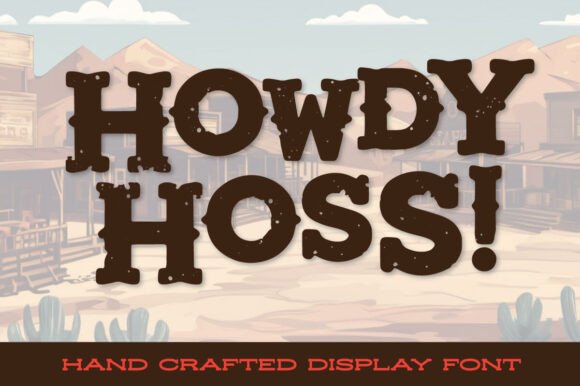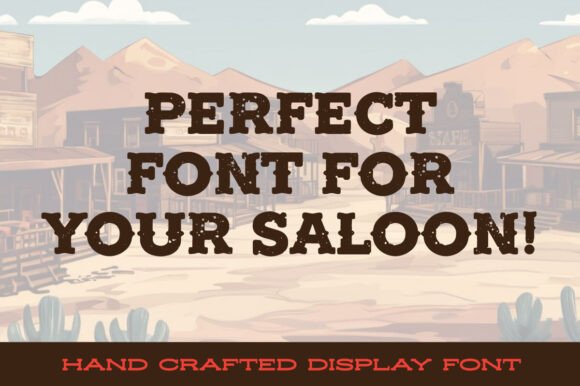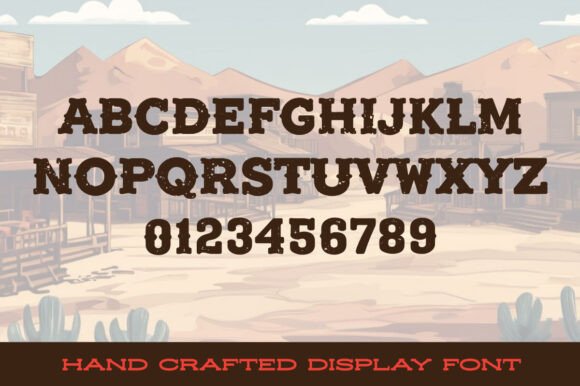
Howdy Hoss Font
About the Howdy Hoss Font
Step up your design game with Howdy Hoss Font, a font that exudes confidence and style. Howdy Hoss is a big, bold Old West-style font that tips its hat to the rugged charm of the frontier. With wide, sturdy letterforms and a touch of rustic flair, this font is ready to lasso attention for anything from saloon signs to rodeo flyers. Whether you’re branding a barbecue joint, creating invitations for a cowboy-themed party, or designing rustic decor, Howdy Hoss delivers a hearty dose of western charisma. It’s the font equivalent of a firm handshake and a warm “Howdy!”—a true workhorse for your wild west-inspired designs.